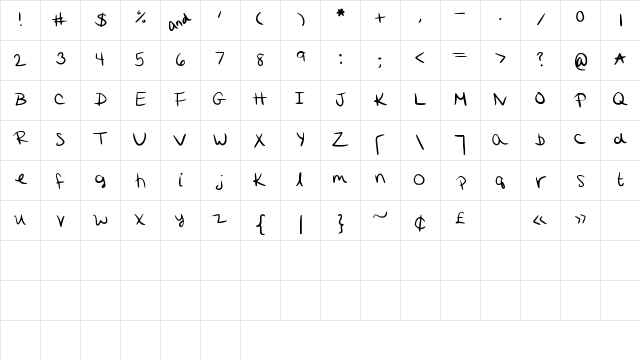
Quirk Regular Free Font
Quirk Regular
Design Context for Quirk
Quirk is a composed and adaptable typeface that performs quietly and consistently across a wide range of design contexts.
Pro Tip: Use Quirk in both headline and body roles to test its range before committing to a single application.